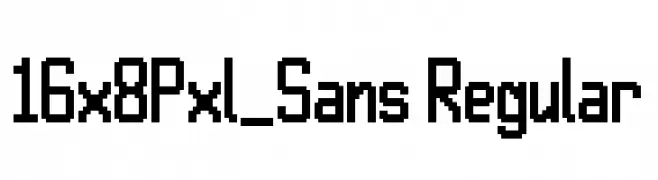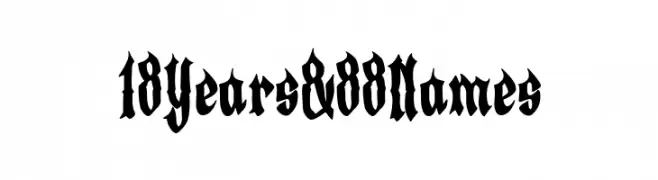
A geometric, monospaced font mimicking 14-segment LED displays.
A digital-style font resembling a 16-segment electronic display.
A digital, segmented font inspired by classic LED displays.
A pixelated, monospaced font with a retro digital aesthetic.
A bold, stencil-style font with a military and industrial aesthetic.
A bold, blackletter-style font with sharp angles and high contrast.